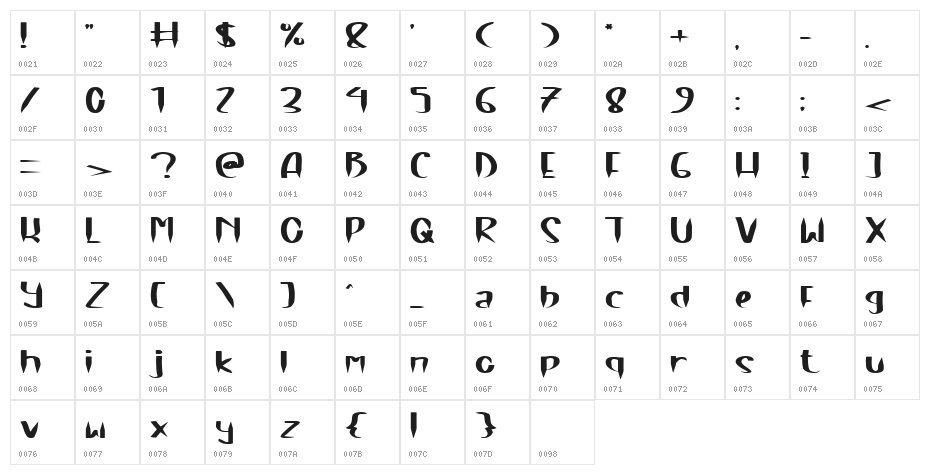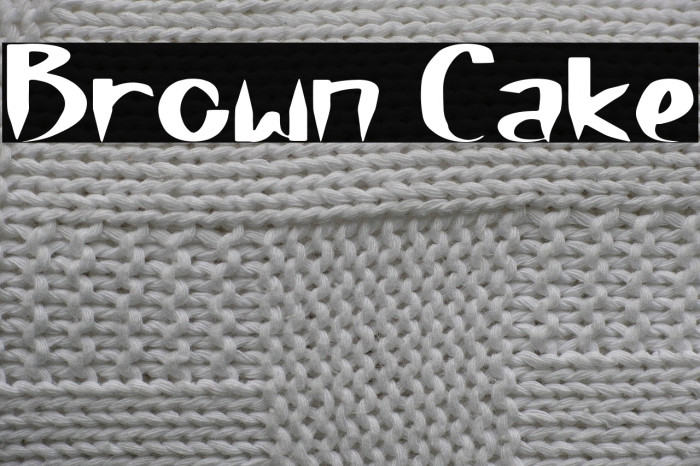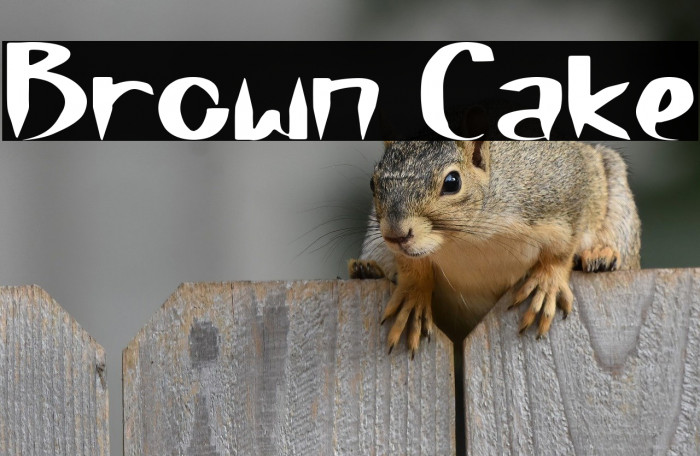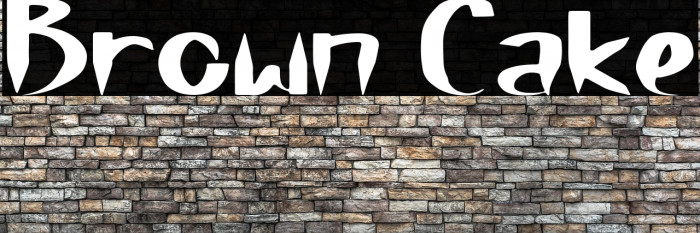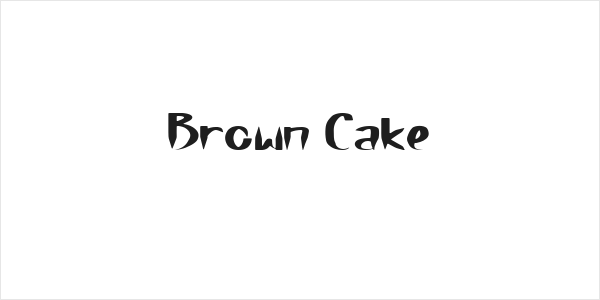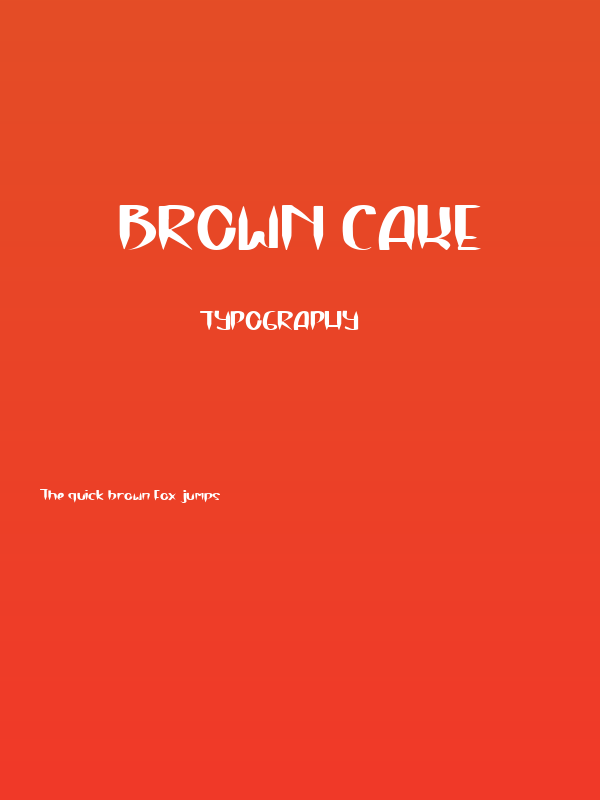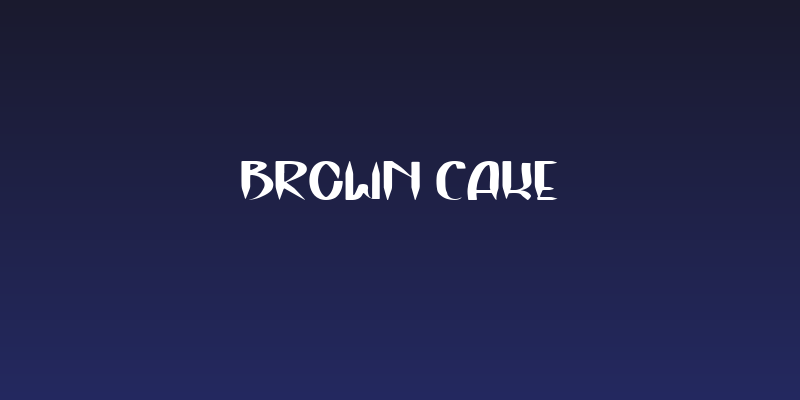
Brown Cake Font
Brown Cake Description
This font features a bold and dynamic style with sharp, angular edges and a slightly aggressive appearance. The characters have a unique, almost tribal aesthetic, with pointed serifs and varying stroke widths that create a sense of movement and energy. The uppercase letters are particularly striking, with exaggerated forms that command attention. The lowercase letters maintain the same edgy style, ensuring consistency across the typeface. Numbers and special characters are designed with the same boldness, making them stand out effectively. This font is ideal for projects that require a strong visual impact.